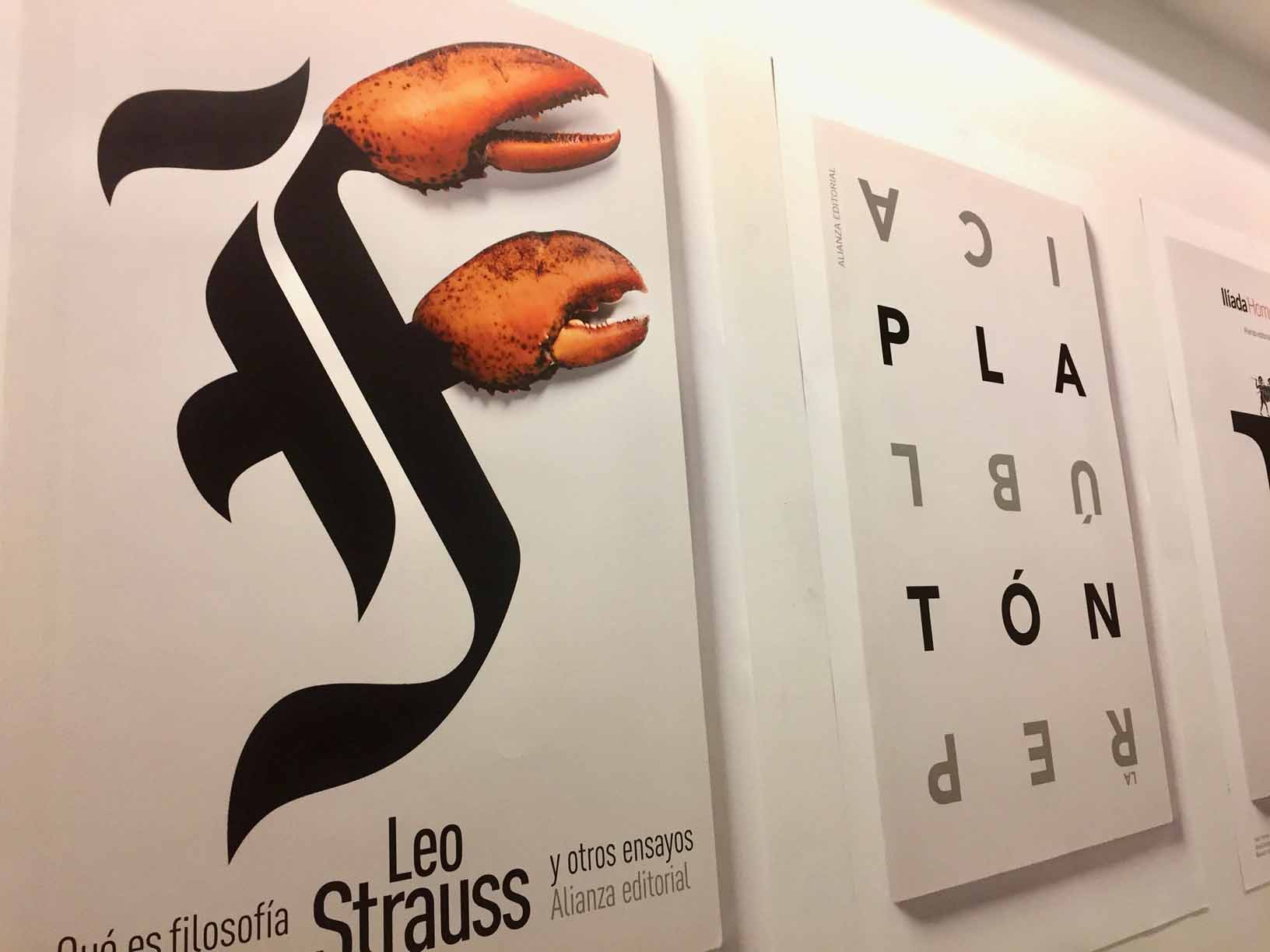
Manuel Estrada: Painting with Letters
Type Directors Club welcomes everyone to see acclaimed Spanish designer Manuel Estrada's current New York exhibition “Painting with Letters: Book Covers, Typograms, and Other Typographic Projects”
The central idea of this exhibition is that writing and painting are two close activities that are in the central core of the creative process. Painting with letters is something Manuel Estrada has always been interested in, as in writing with images. It is a way of summing up all tools to turn design into an object to examine or an image to look at. Most of works shown are book covers, but the exhibition features posters and logos that are built around the same principle — typography as the main tool of graphic design.
Manuel Estrada is the recipient of the Spanish National Design Award. His Estudio, founded in 1989, has offices in Madrid and Miami, it has a team of 17 people and is specialized in corporate identity programs. He is a strong supporter of design as a fact of business development and its direct input in the success of corporations, and has also being dedicated to teaching in many different institutions. His work has been exhibited in New York, Chicago, Helsinki, Berlin, Lisbon, and many cities throughout Spain.